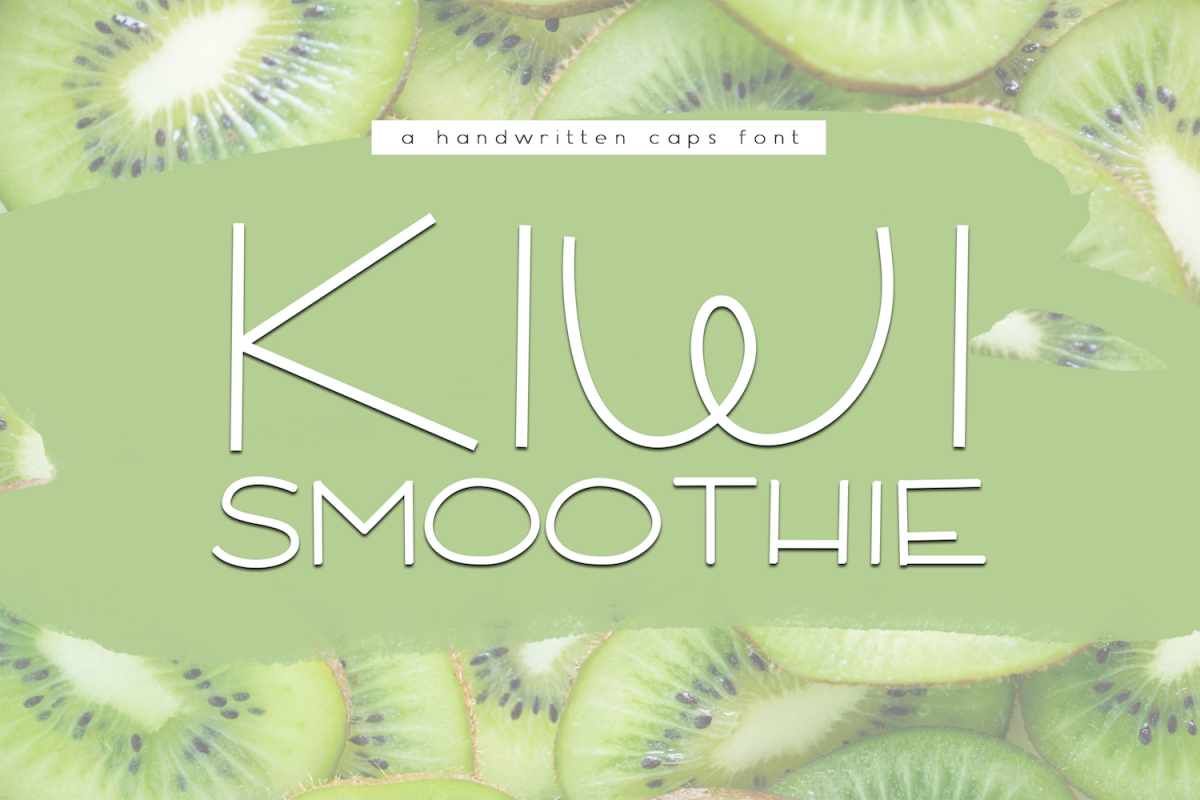
Kiwi Smoothie - A Fun Handwritten Font
Kiwi Smoothie is a cute handwritten font.  It is an ALL CAPS font.
This font is perfect for quotes, headings, blogs, logos, invitations and more!
It is also great for children's designs!
This font does include accent characters.